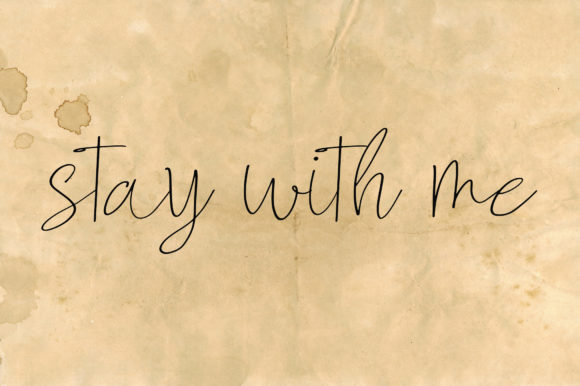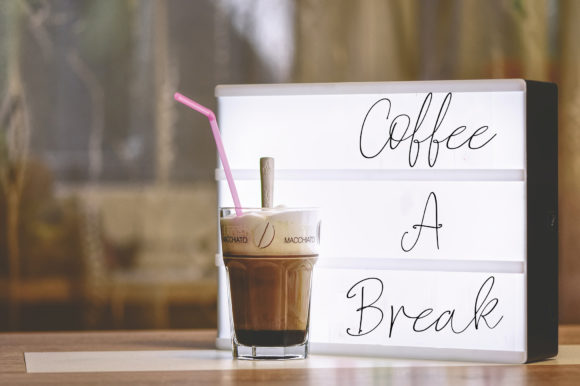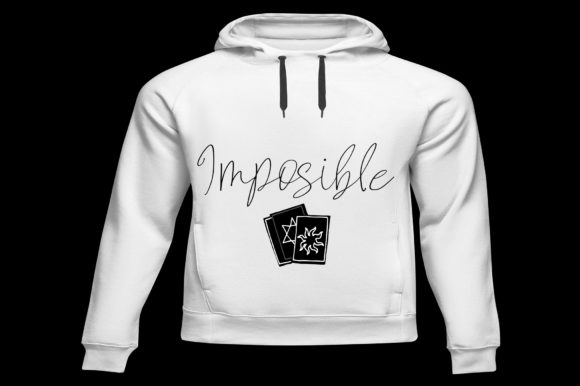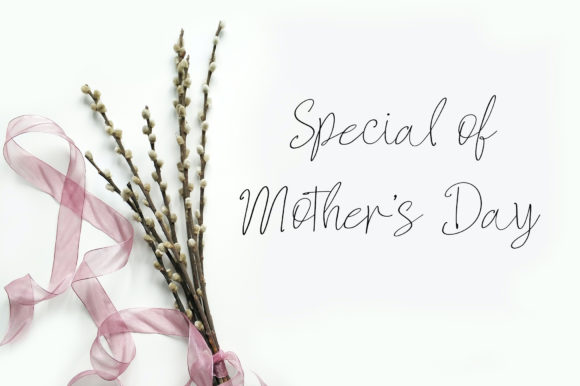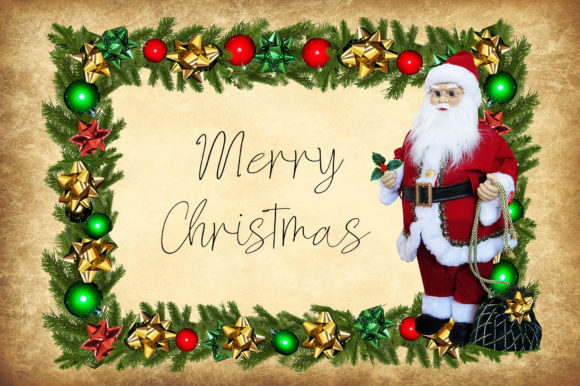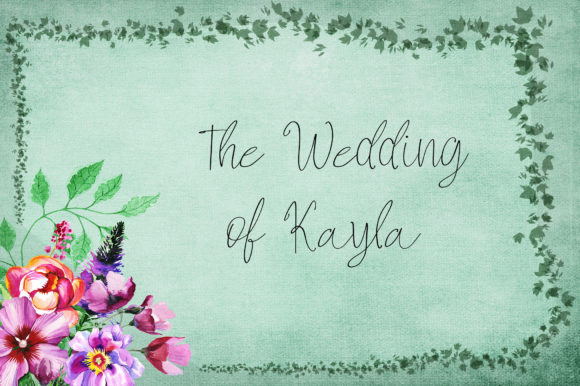
The Perfect Match for Your Creative Ideas
Have you ever stared at a blank page, waiting for that perfect spark to ignite your creativity? Maybe it was a late-night brainstorming session, or a moment of solitude in a quiet café. Whatever the setting, the thrill of bringing an idea to life is a feeling like no other. For designers, this moment is the culmination of hard work and dedication, and it’s where the right tools can make all the difference.
Enter the Home Stay Font, a delicate and elegant handwritten font that brings a touch of sophistication to any design. With its beautiful, well-balanced characters, Home Stay Font is the perfect match for your most creative ideas. Whether you’re working on a logo, a brochure, or a social media campaign, this versatile font is sure to elevate your work and make it shine.
As a valuable addition to any designer’s toolkit, Home Stay Font is a must-have for anyone looking to add a personal touch to their designs. Its unique charm and elegance make it a versatile choice for a wide range of projects, from modern to traditional, and everything in between.
Home Stay Font Key Features
- Unique Characteristics: Home Stay Font features a distinctive, hand-drawn design with a mix of modern and traditional elements, making it suitable for various design projects.
Home Stay Font Review
I recently had the chance to work with the “Home Stay Font” and I must say it’s a solid addition to any designer’s toolkit. Here’s what I liked:
- ✨ Unique and playful style that’s perfect for creating a welcoming atmosphere in digital products.
- ✨ Wide range of font weights and styles, making it versatile for various design applications.
- ✨ Great for use in branding and marketing materials, particularly in the hospitality and travel sectors.
- ⚠️ The font can be a bit too ornate for some designs, potentially making it difficult to read at smaller sizes.
- ⚠️ Some letters and characters may not be easily legible in certain contexts, such as on low-resolution screens.
- ⚠️ The font’s unique style may not be to everyone’s taste, which could limit its appeal in certain design projects.
Overall, I’d say the “Home Stay Font” is a great choice for designers looking to add a touch of warmth and personality to their digital products. While it may not be perfect for every design scenario, its unique style and versatility make it a valuable addition to any font collection.
Tips for Getting the Most Out of Home Stay Font
Home Stay Font is perfect for creating a welcoming and homely atmosphere in your designs. Here are some tips to get the most out of it:
- Use it in combination with warm colors and textures to create a cozy feel.
- Use it in headings and subheadings to create a clear hierarchy of information.
Home Stay Font is perfect for:
- Travel and hospitality branding.
- Choose a clean and simple layout to highlight the font’s unique characteristics.
- Use the font for headings and titles to create a sense of warmth and approachability.
- Combine the font with high-quality images of the bed and breakfast’s interior and exterior to create a cozy atmosphere.
- Use a combination of warm and cool colors to create a sense of balance and contrast.
- Choose a simple and elegant background texture to let the font and images take center stage.
- Use subtle graphics and illustrations to add visual interest and depth to the design.
- Use the font for headings and subheadings to create a sense of hierarchy and structure.